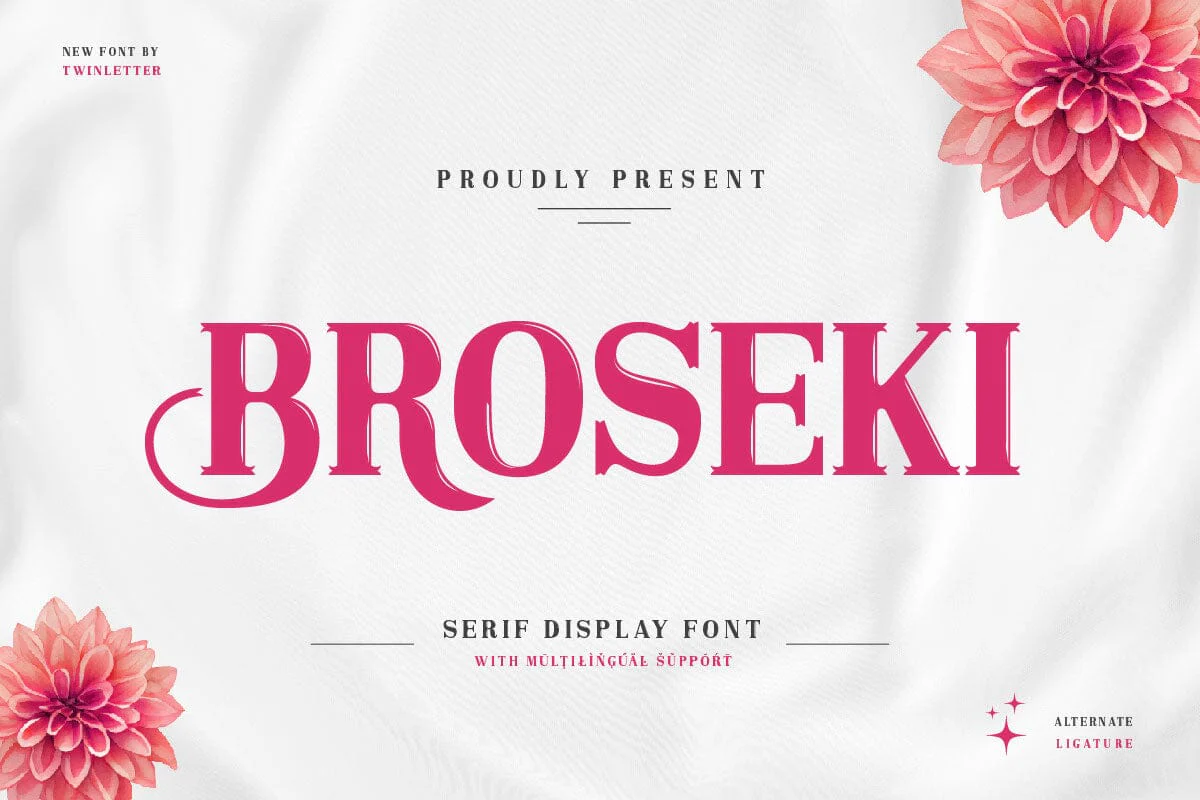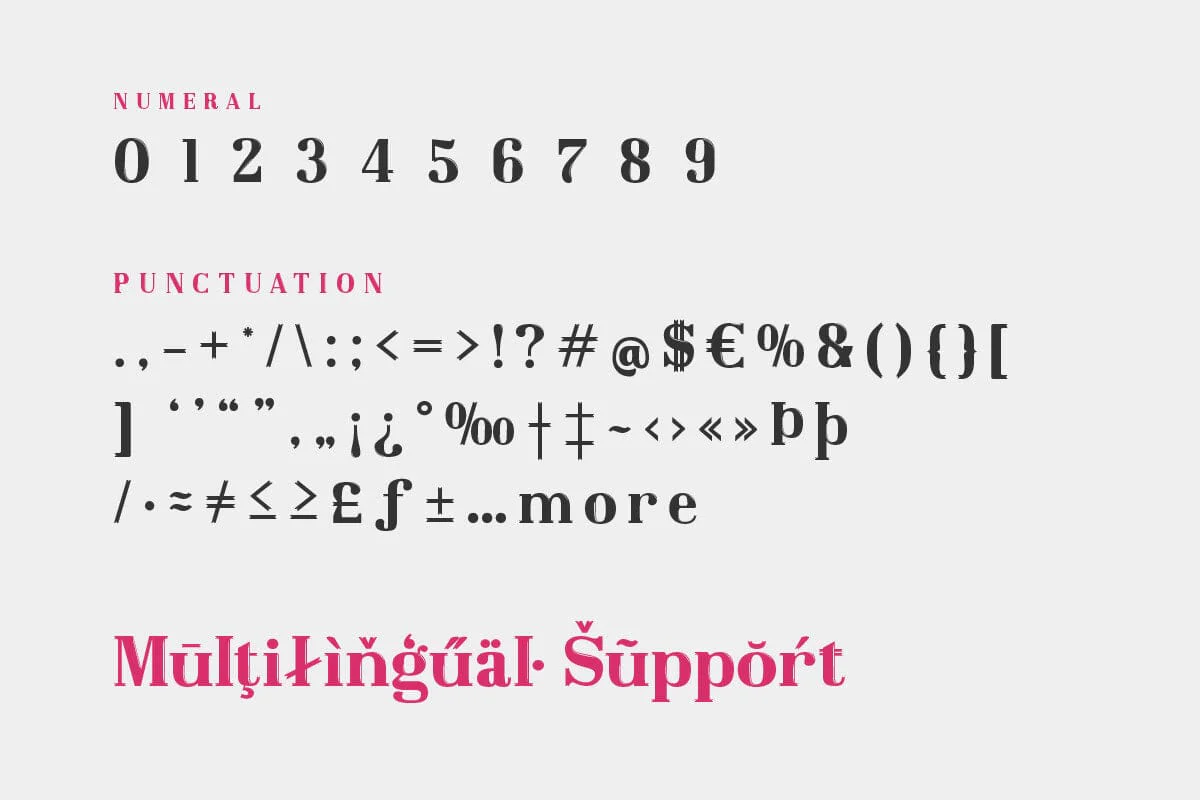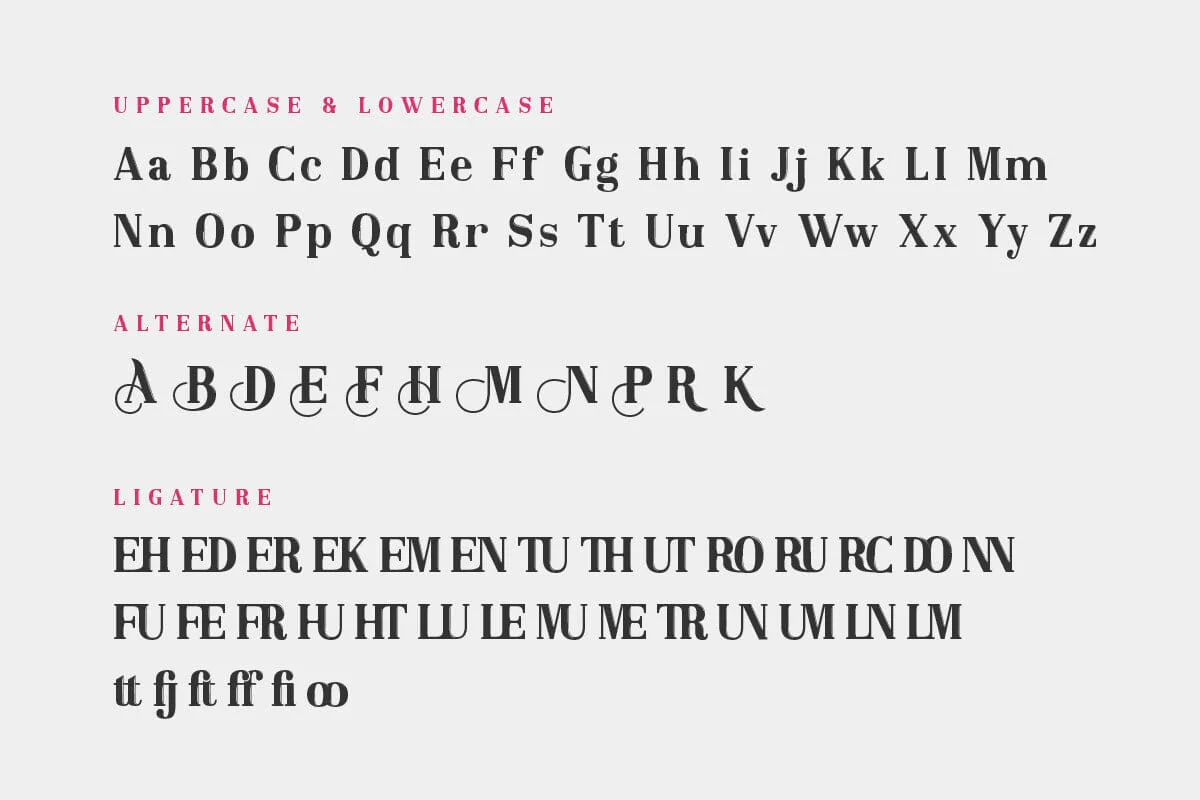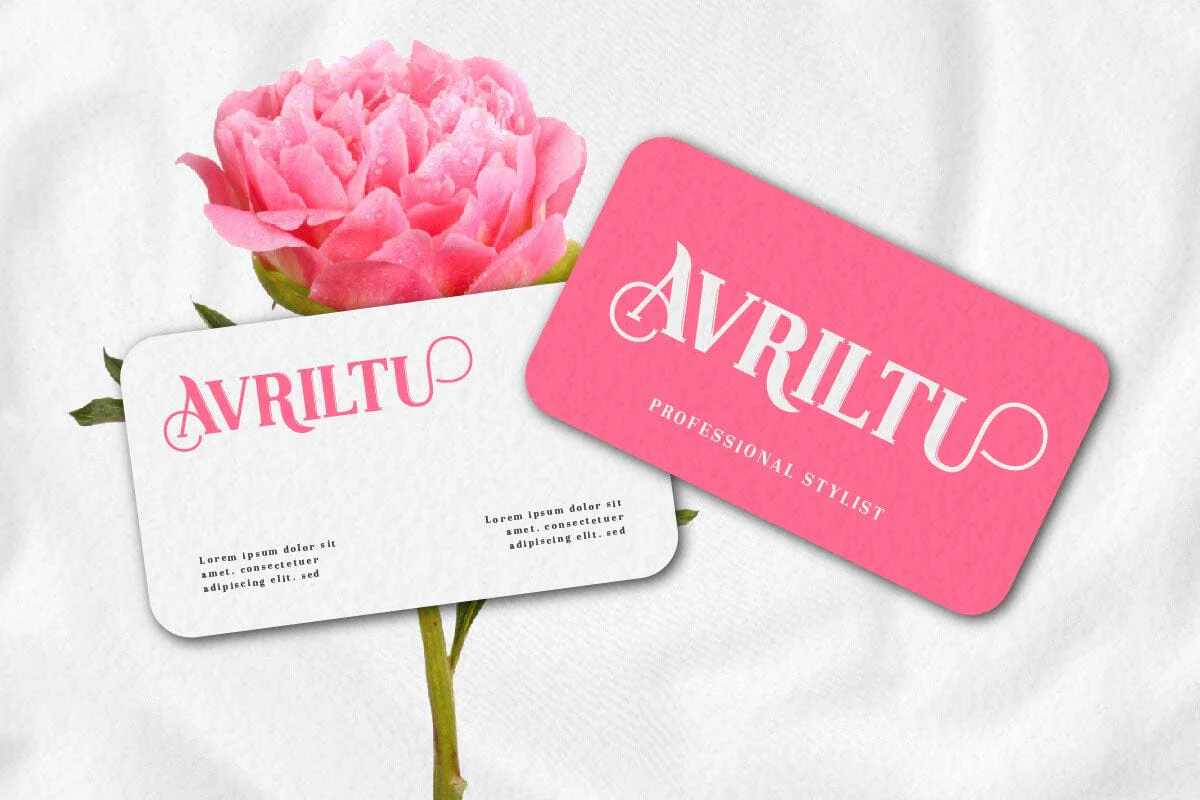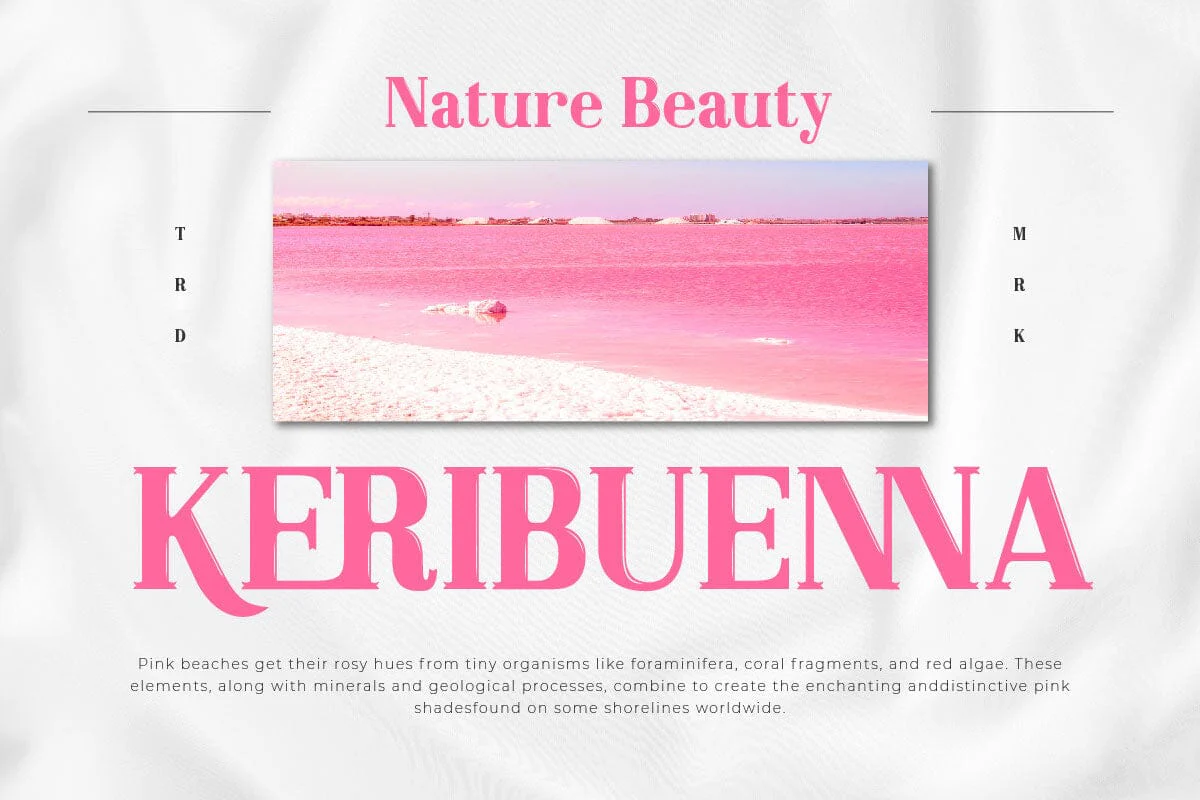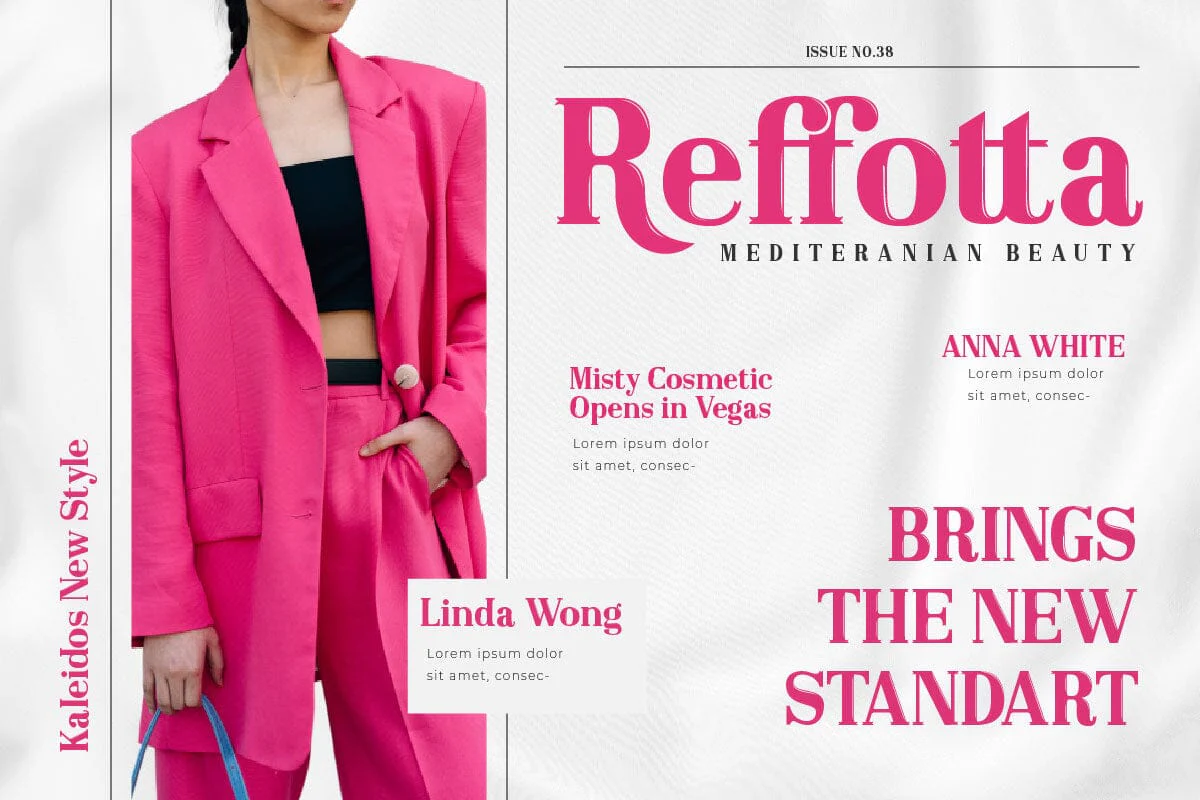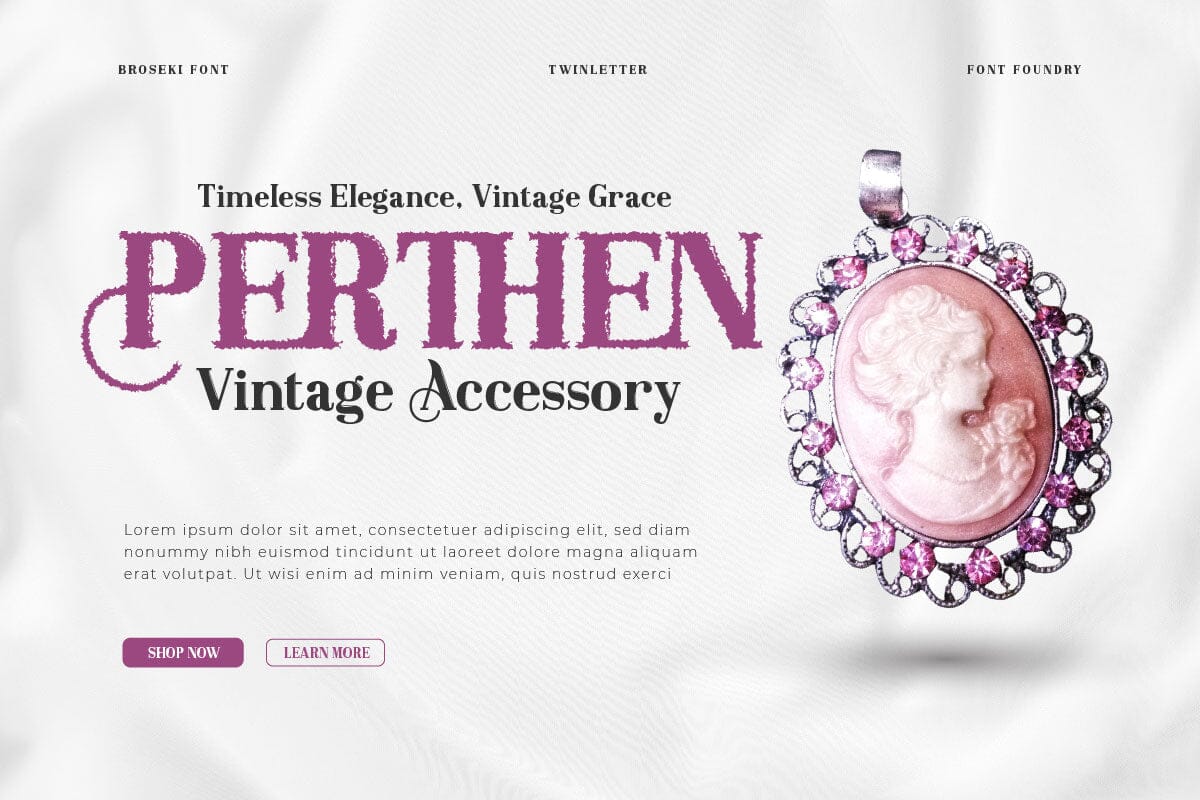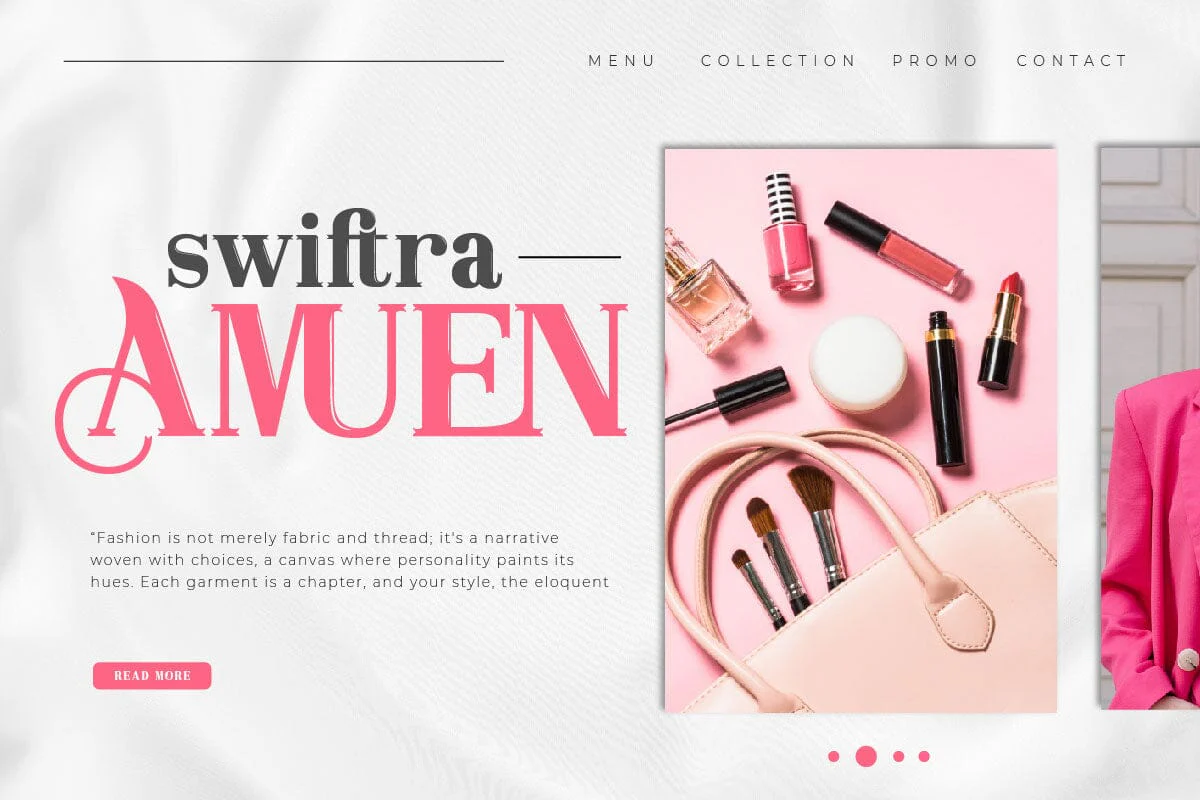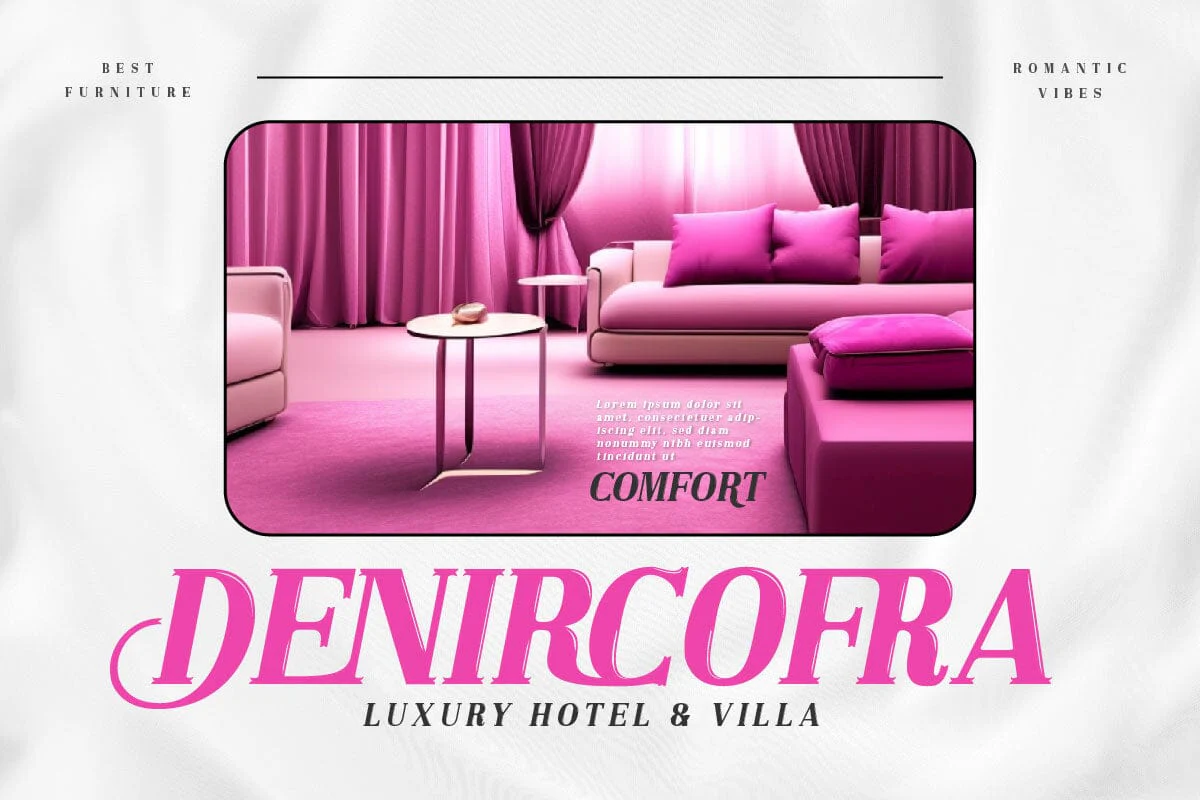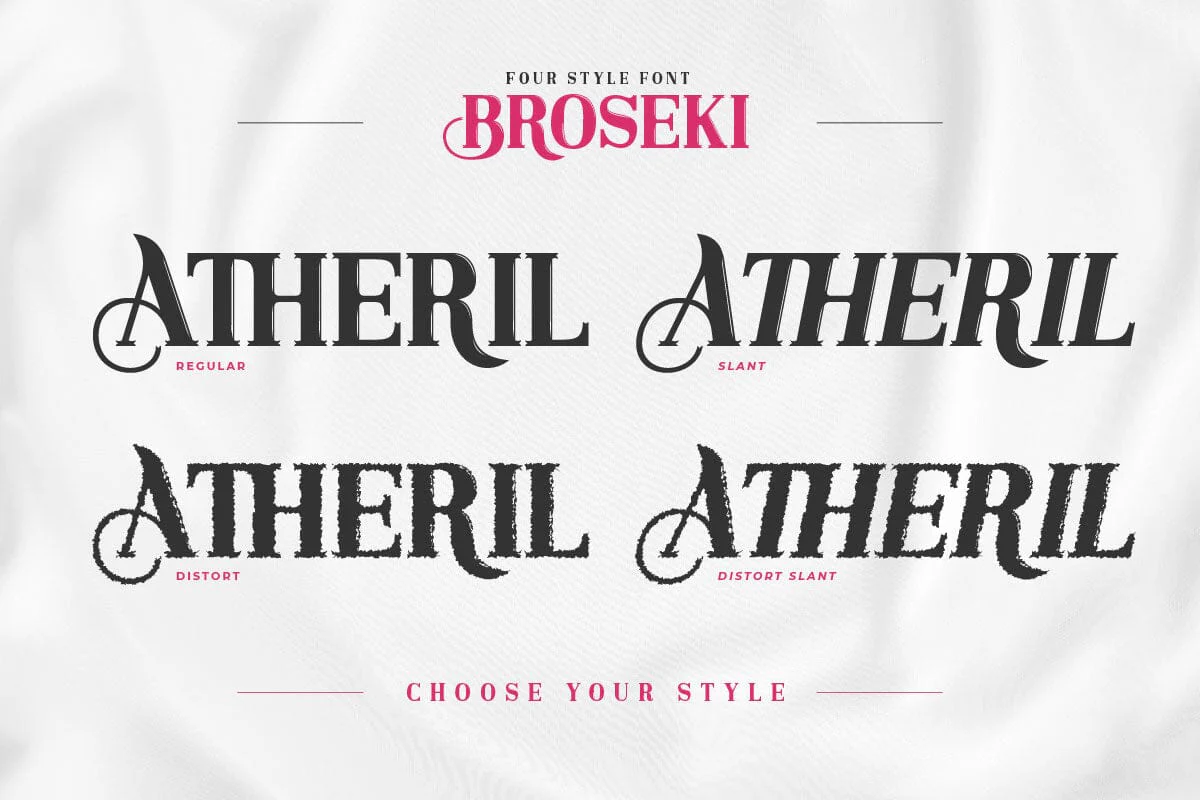
Broseki - Serif Display Font
Broseki Serif Display Font answers your search for an elegant and classy design. With a beautiful serif touch, Broseki presents a harmonious combination of classic elegance and stunning modernism. Each letter in Broseki is carefully designed to exude luxury and boldness. The applied serif style creates an impressive look, perfect for projects that require a formal, professional feel. This font displays aesthetic beauty and ensures flexibility in its use. With its diverse character, Broseki can be applied in various contexts and designs, making it the perfect choice for logos, promotional materials, or other design projects. It's time to enhance your visual presence with Broseki Serif Display Font. Bring an unforgettable classic touch and make your designs shine with timeless elegance! What’s Included: - File font OTF, TTF, WOFF, WOFF2, CSS, HTML - All glyphs and variation - We highly recommend using a program that supports OpenType features and Glyphs panels like many Adobe apps and Corel Draw so that you can see and access all Glyph variations. - PUA Encoded Characters – Fully accessible without additional design software. - Fonts include Multilingual support